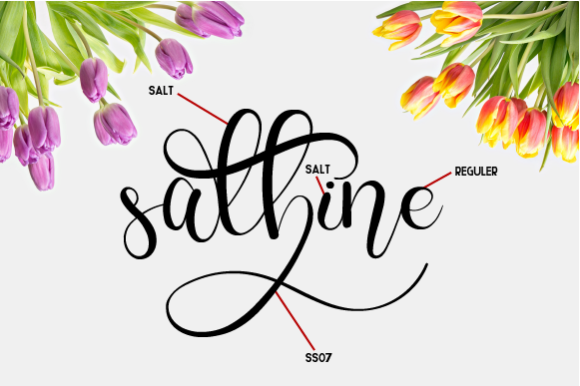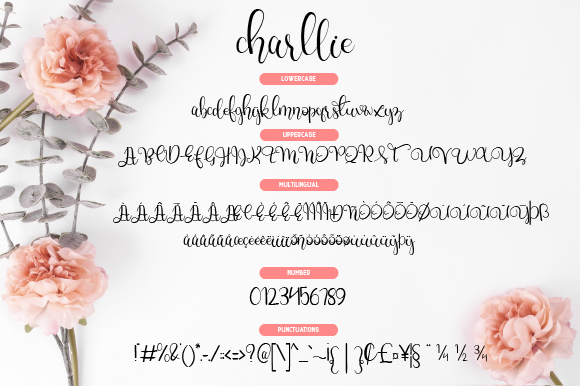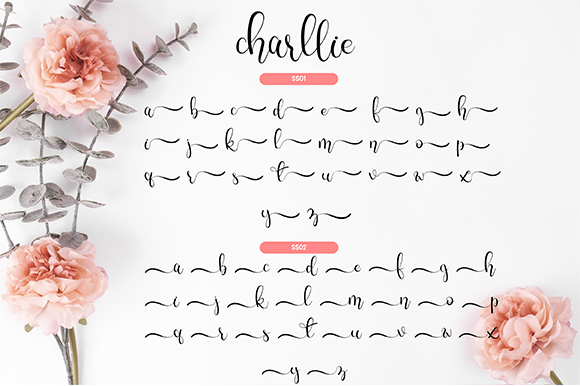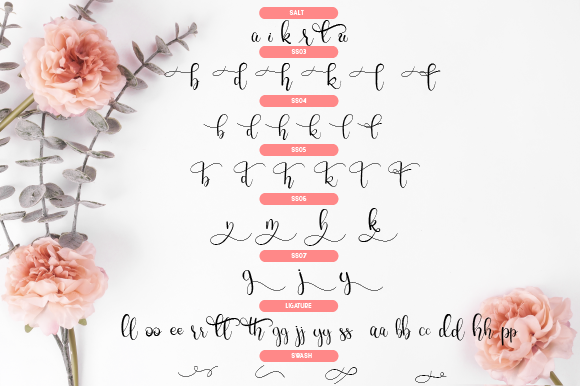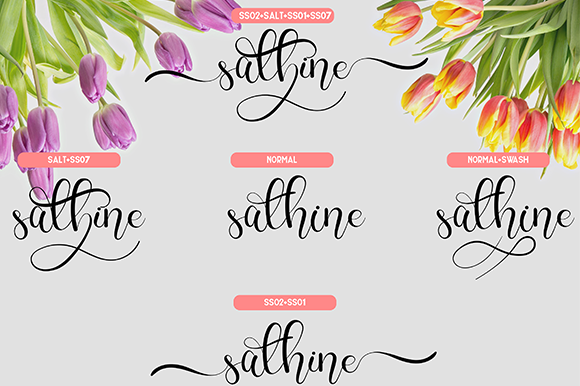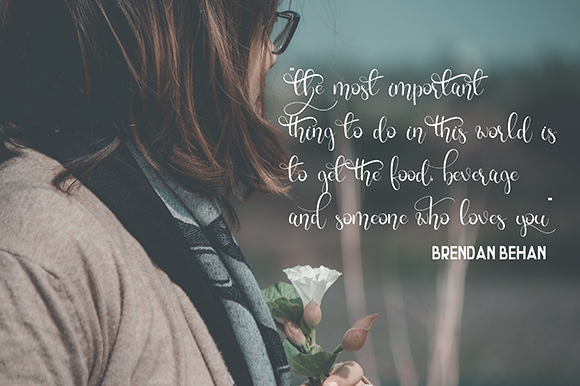
Introducing Charllie Script Font: Elevate Your Designs with Elegance
The Charllie Script Font is an exquisite addition to the world of typography, offering a unique blend of elegance and femininity. This beautiful handwritten font is designed to add a touch of sophistication to upscale and chic designs, making it a perfect choice for designers and crafters looking to create stunning visual content.
The Essence of Charllie Script Font
The Charllie Script Font is an elegant handwritten font that exudes refinement and poise. Its flowing lines and delicate strokes create a sense of movement and fluidity, making it ideal for designs that require a touch of whimsy and romance. Whether you’re working on a luxury brand, a wedding invitation, or a high-end product, this font is sure to impress.
Key Features of Charllie Script Font
- Elegant Handwritten Style: The Charllie Script Font boasts a beautiful, handwritten style that adds a personal touch to any design.
- Feminine Touch: This font is perfect for designs that require a feminine and elegant feel, making it ideal for bridal, beauty, and lifestyle brands.
- Upscale and Chic: The Charllie Script Font is designed to add a touch of sophistication to upscale and chic designs, making it perfect for luxury brands and high-end products.
- Versatile: This font can be used for a variety of design projects, including logos, branding, packaging, and more.
Design Inspiration with Charllie Script Font
The Charllie Script Font is perfect for designers and crafters looking to create stunning visual content. Here are some design inspiration ideas to get you started:
- Wedding Invitations: Use the Charllie Script Font to create beautiful and elegant wedding invitations that set the tone for a sophisticated and romantic celebration.
- Luxury Branding: Add a touch of elegance to your luxury brand with the Charllie Script Font, perfect for high-end products and services.
- Beauty and Lifestyle: Use this font to create stunning packaging and branding for beauty and lifestyle products that exude femininity and sophistication.
Tips for Using Charllie Script Font
To get the most out of the Charllie Script Font, here are some tips to keep in mind:
- Pair with Neutral Colors: Pair the Charllie Script Font with neutral colors like white, beige, or gold to create a sophisticated and elegant look.
- Use for Headlines and Titles: Use the Charllie Script Font for headlines and titles to add a touch of elegance and sophistication to your design.
- Experiment with Font Sizes: Experiment with different font sizes to create visual interest and hierarchy in your design.
| Font Name | Charllie Script Font |
| Author | Fallengraphic |
The Charllie Script Font is a beautiful and elegant handwritten font that adds a touch of sophistication to upscale and chic designs. With its feminine touch and versatile design, this font is perfect for designers and crafters looking to create stunning visual content. Whether you’re working on a luxury brand, a wedding invitation, or a high-end product, the Charllie Script Font is sure to impress.